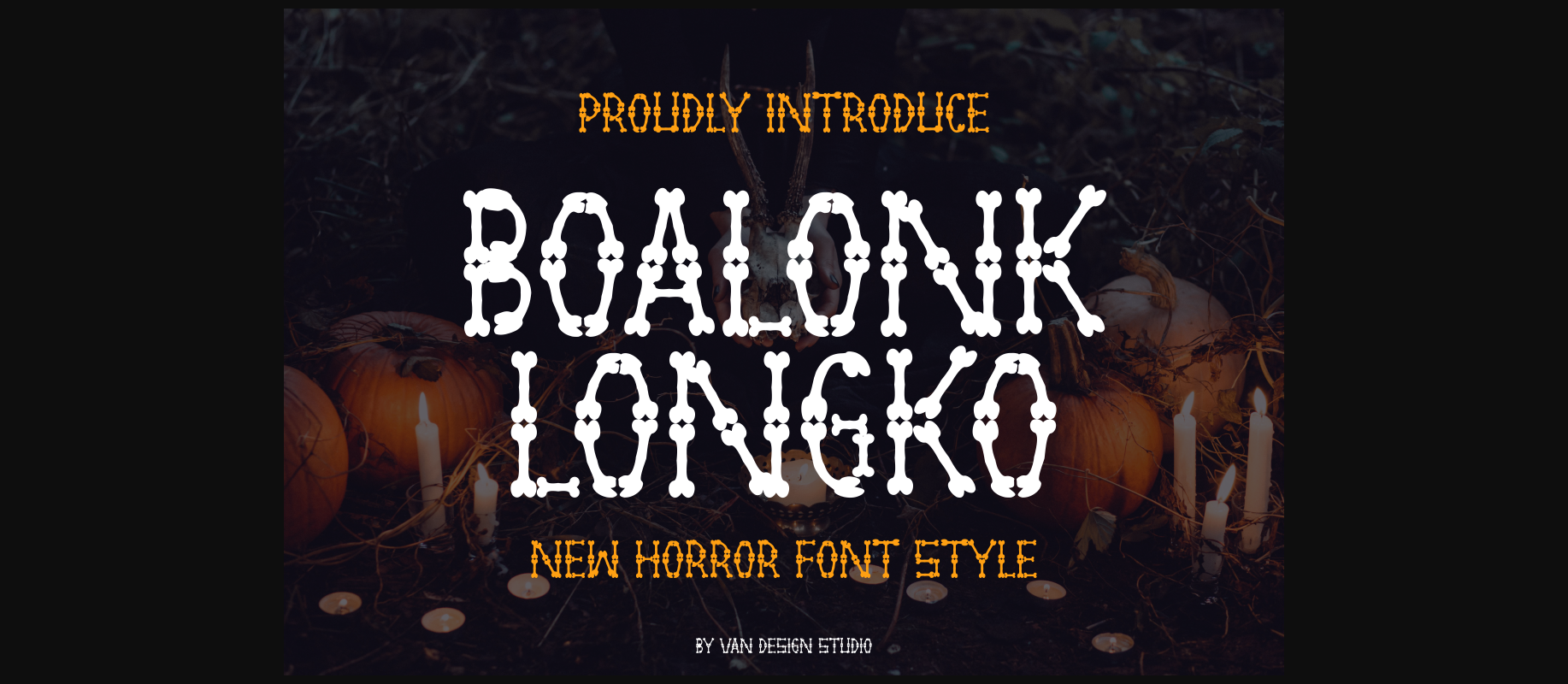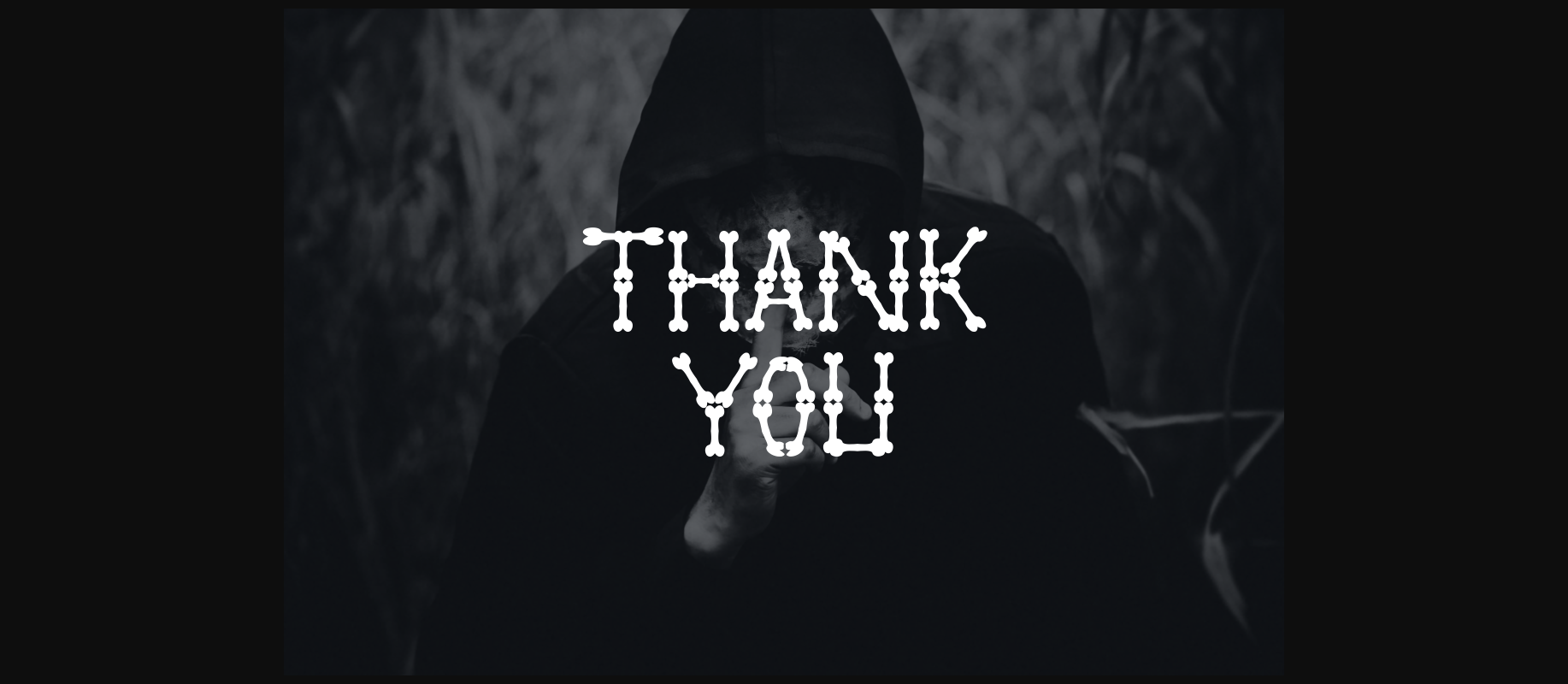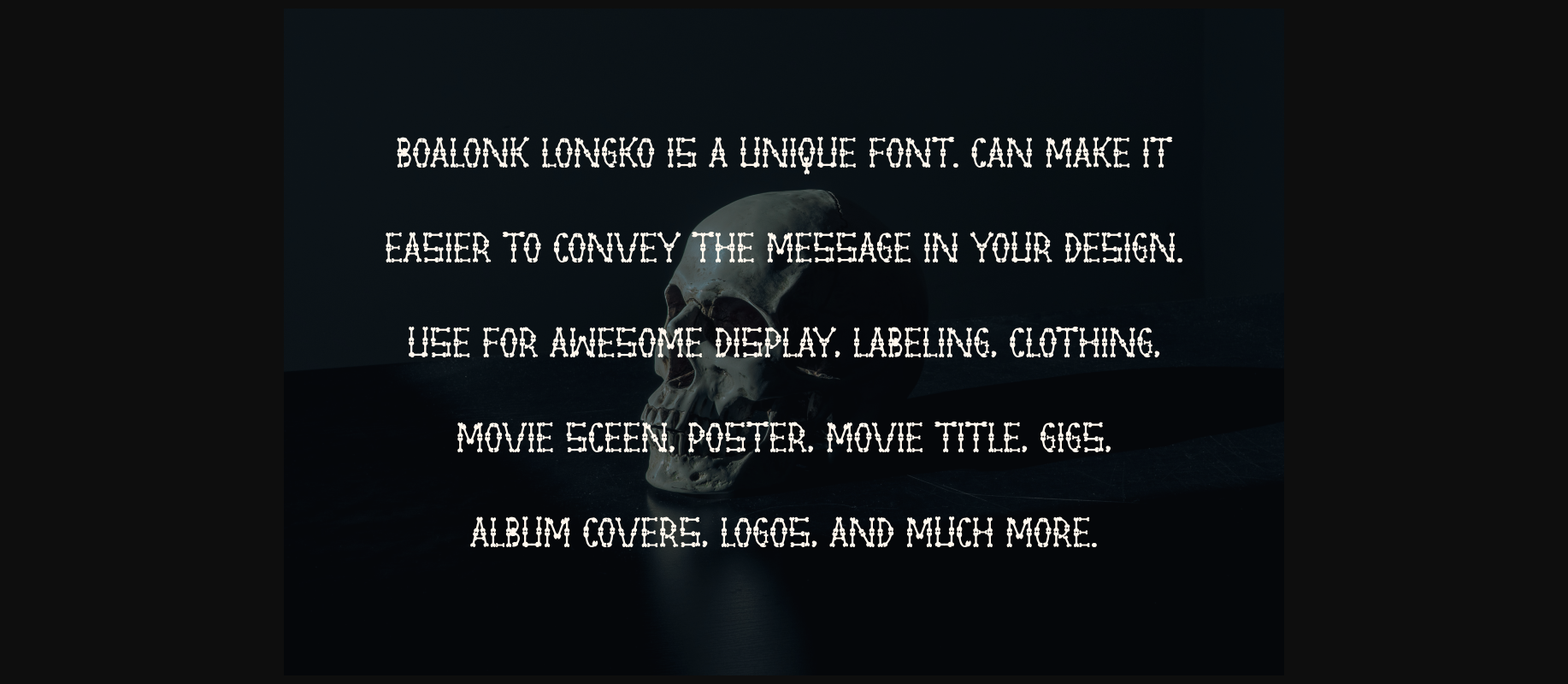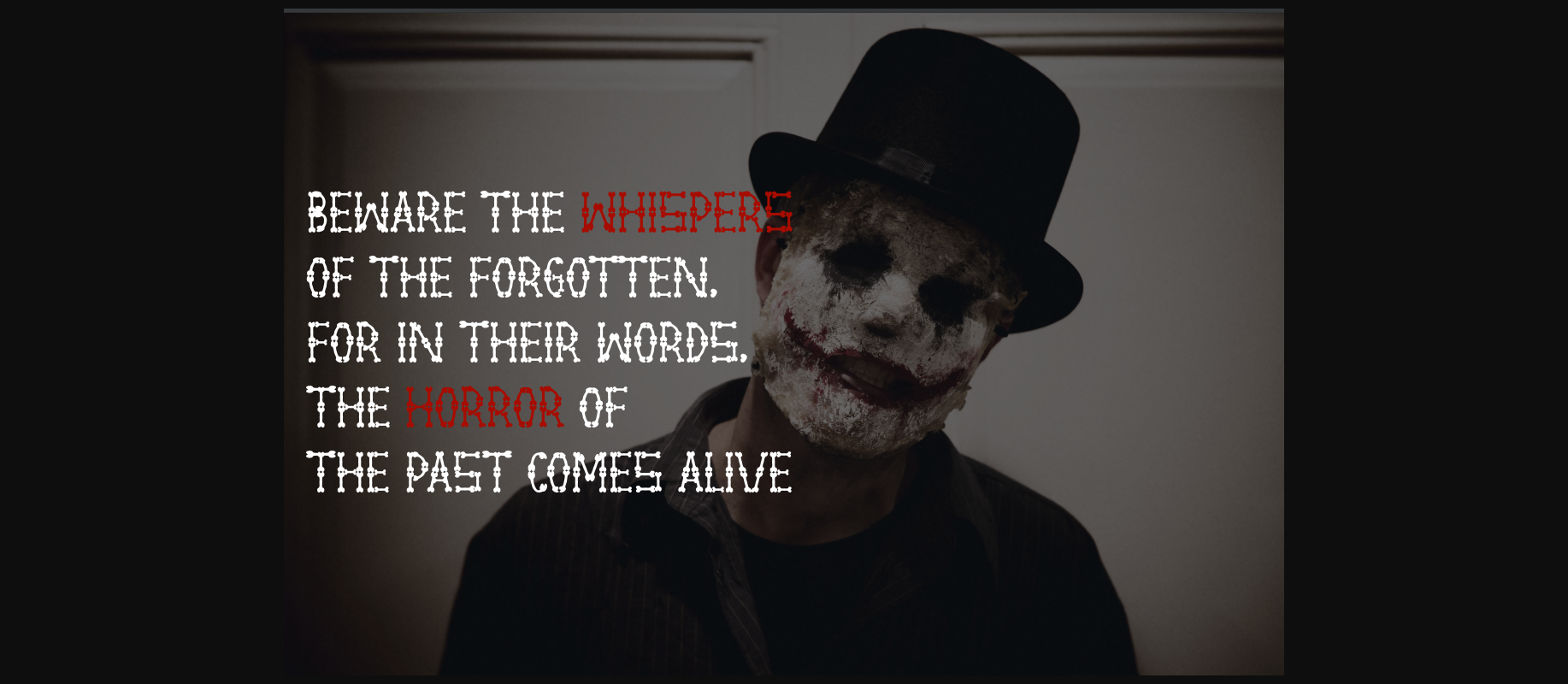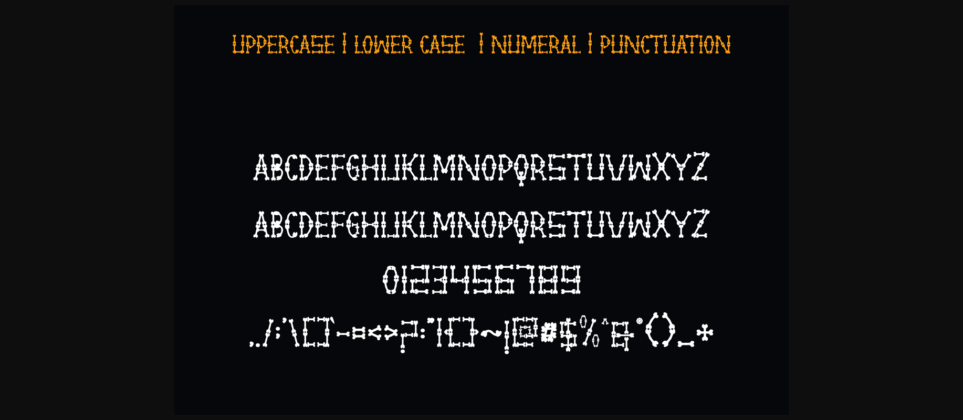
Boalonk Longko Font
About Boalonk Longko Font
Boalonk Longko is an incredibly cool and unique decorative font. It has a modern yet whimsical style and it will undoubtedly immerse your designs into a magical world.